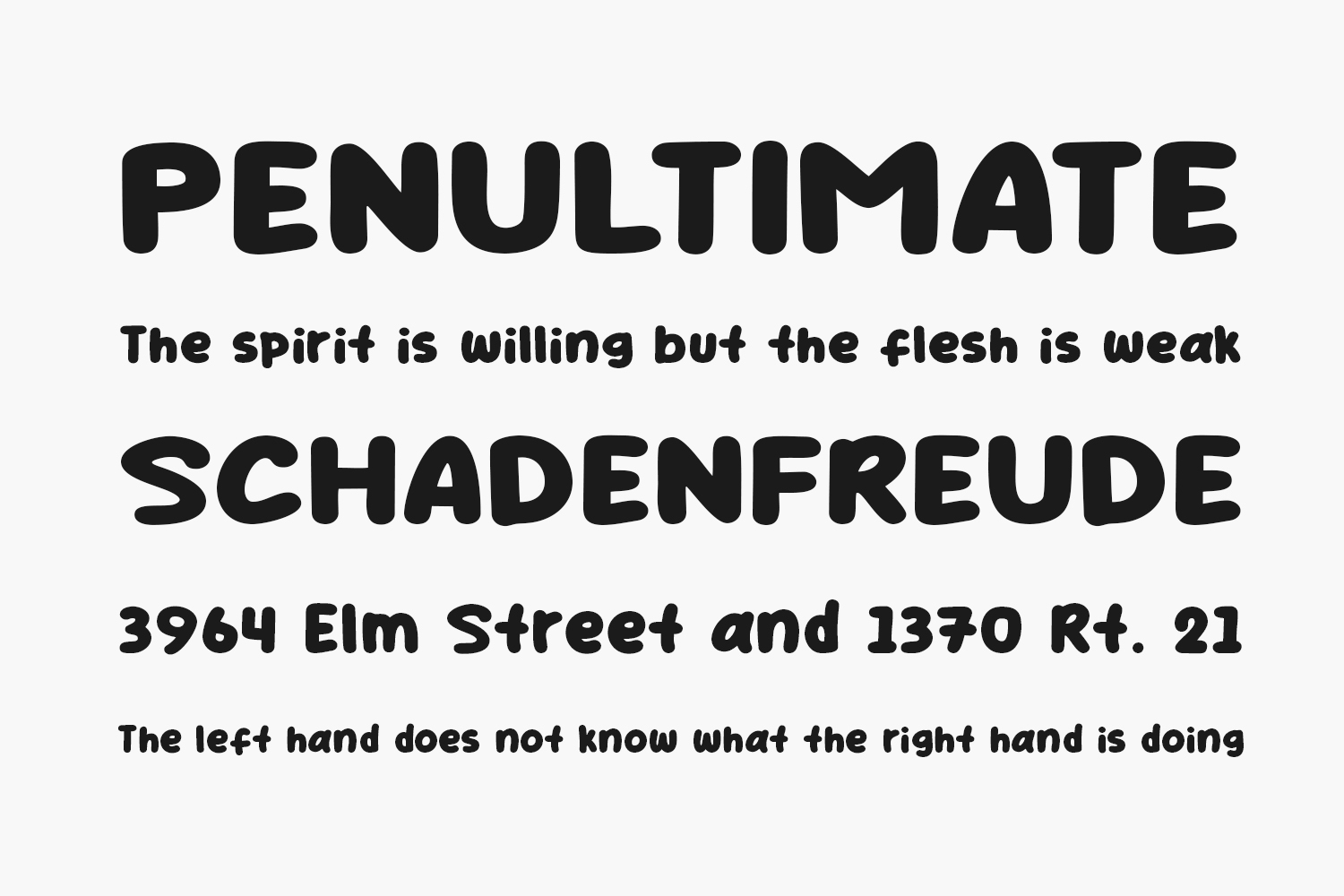
Introducing Star Cartoon Free Font, an exquisite and stylish display font ideal for a wide range of applications such as posters, logos, magazines, book covers, banners, and beyond! Unleash your creativity with this remarkable typeface, elevating your designs to new levels of beauty. With its versatility, Star Cartoon seamlessly integrates into a vast array of projects, infusing them with an undeniable allure. Enhance your creative ideas by incorporating this font and witness how it effortlessly distinguishes them from the crowd! Don’t miss out on this extraordinary font – acquire it now and unlock endless possibilities. Star Cartoon Free Font is free for personal or commercial use.